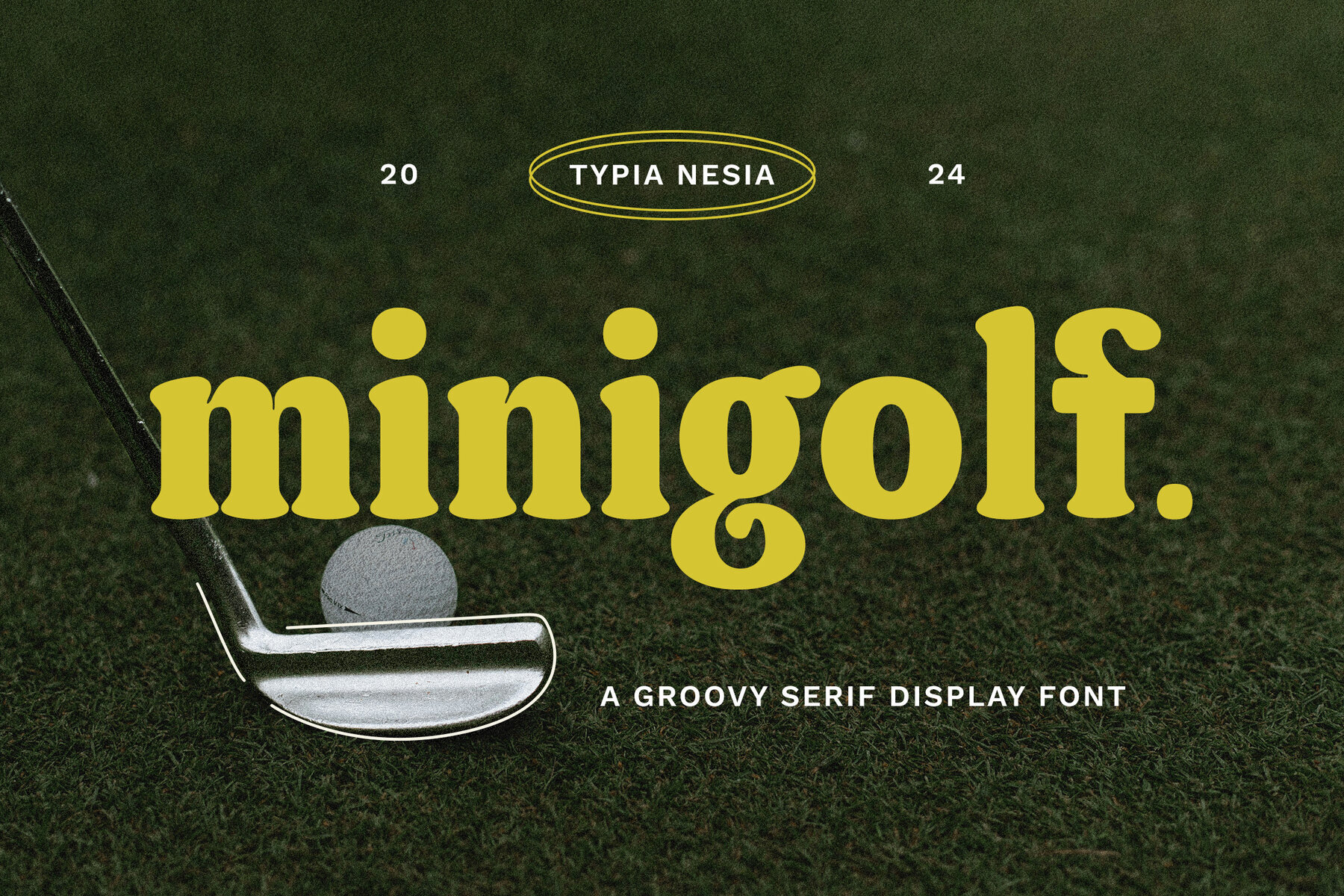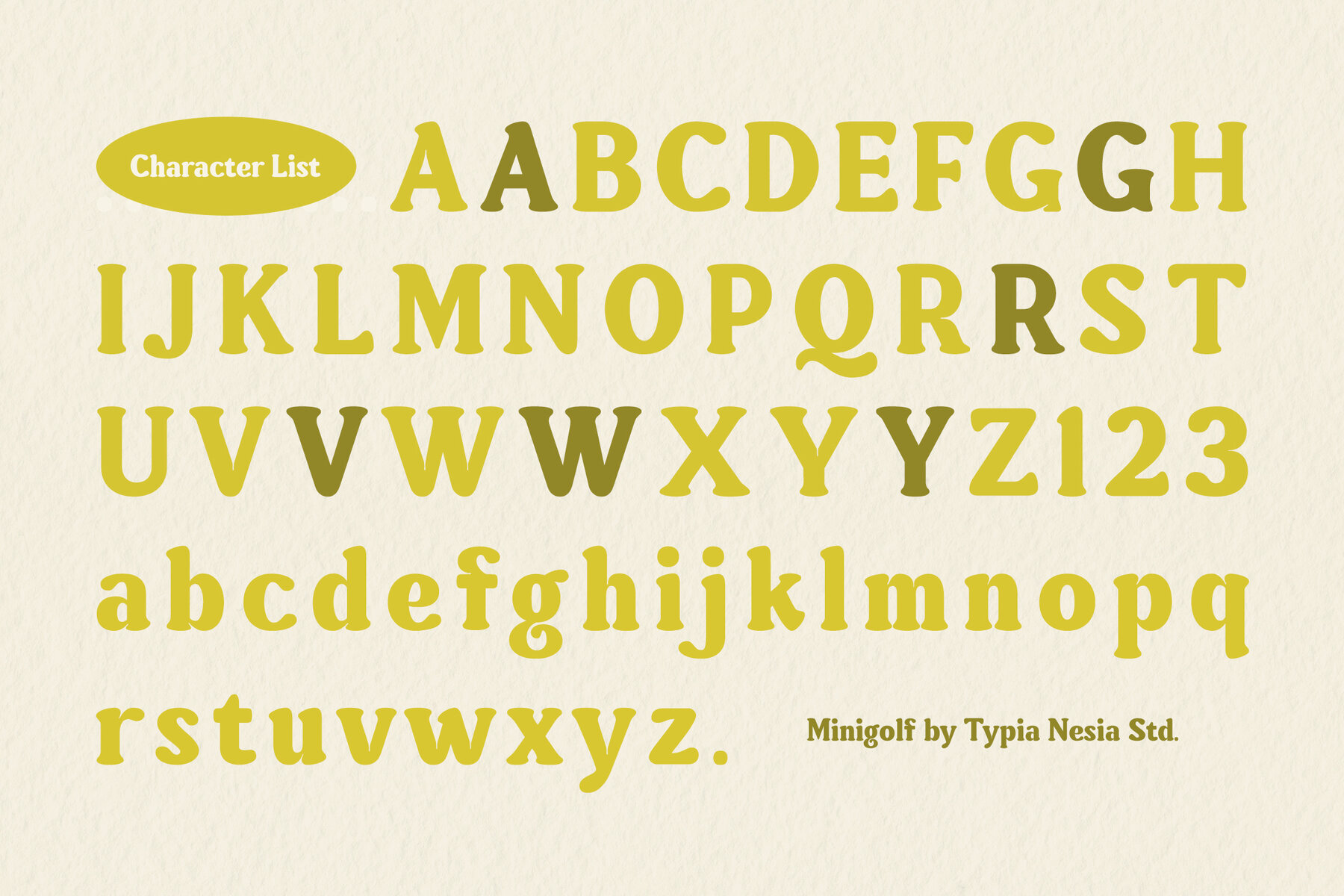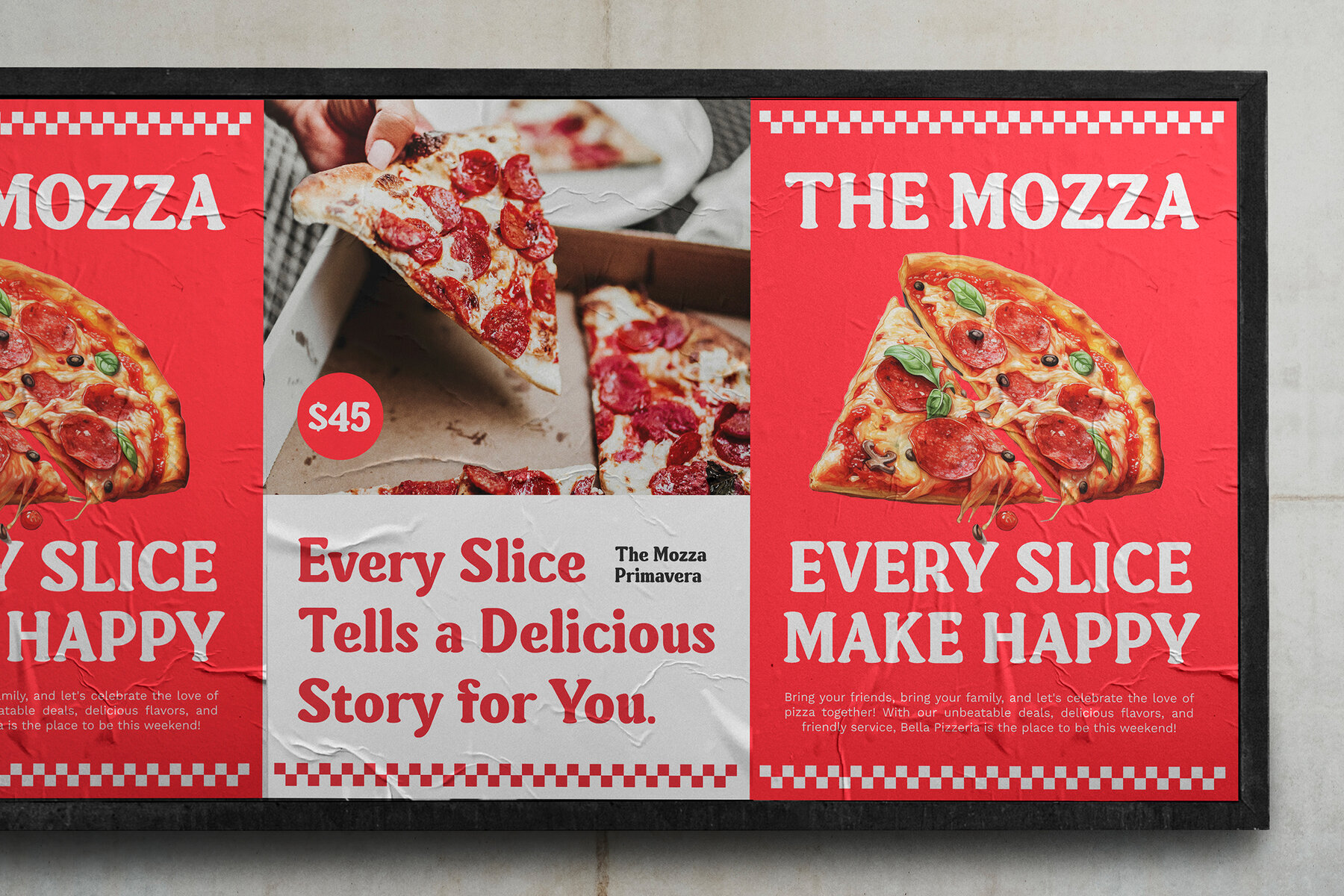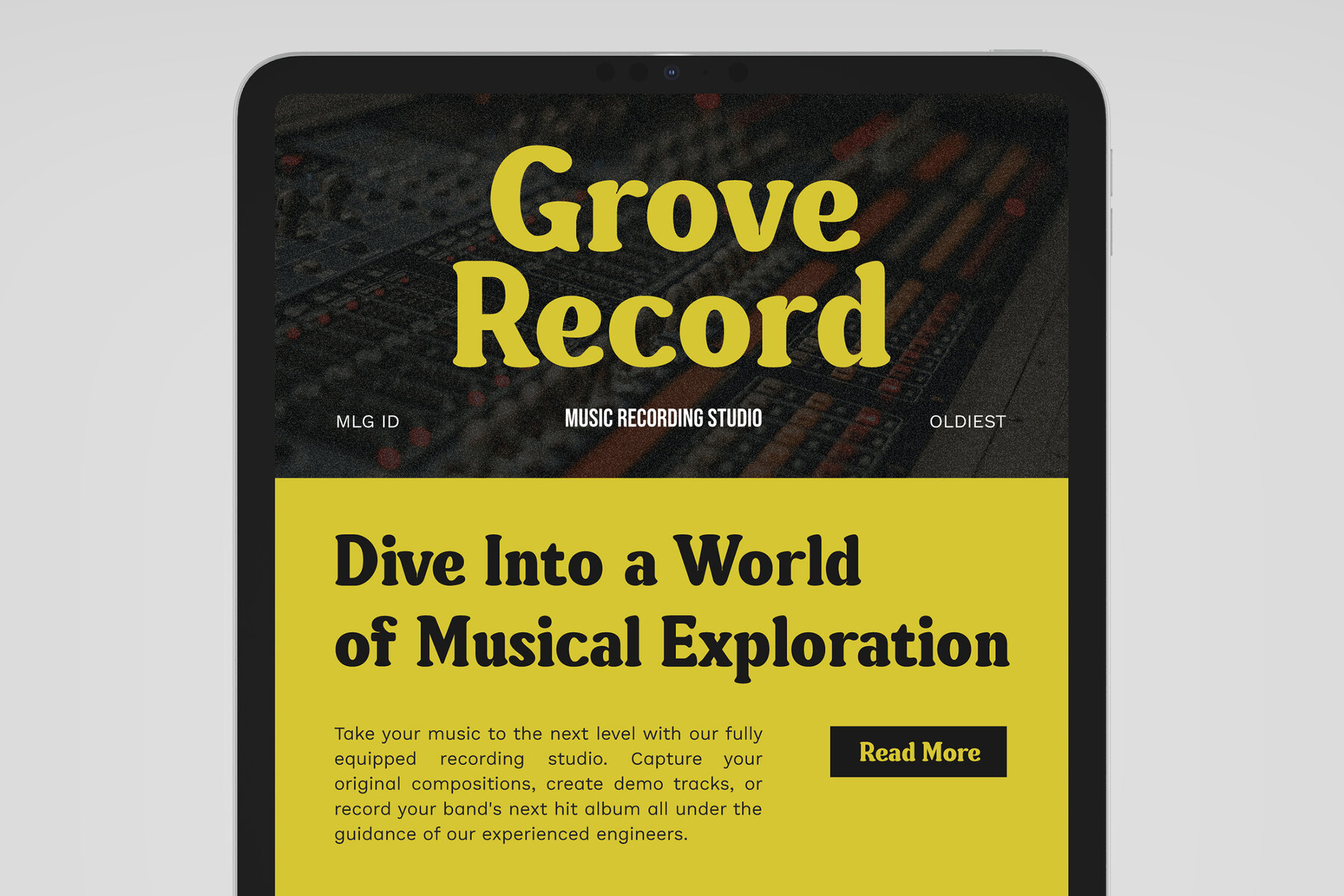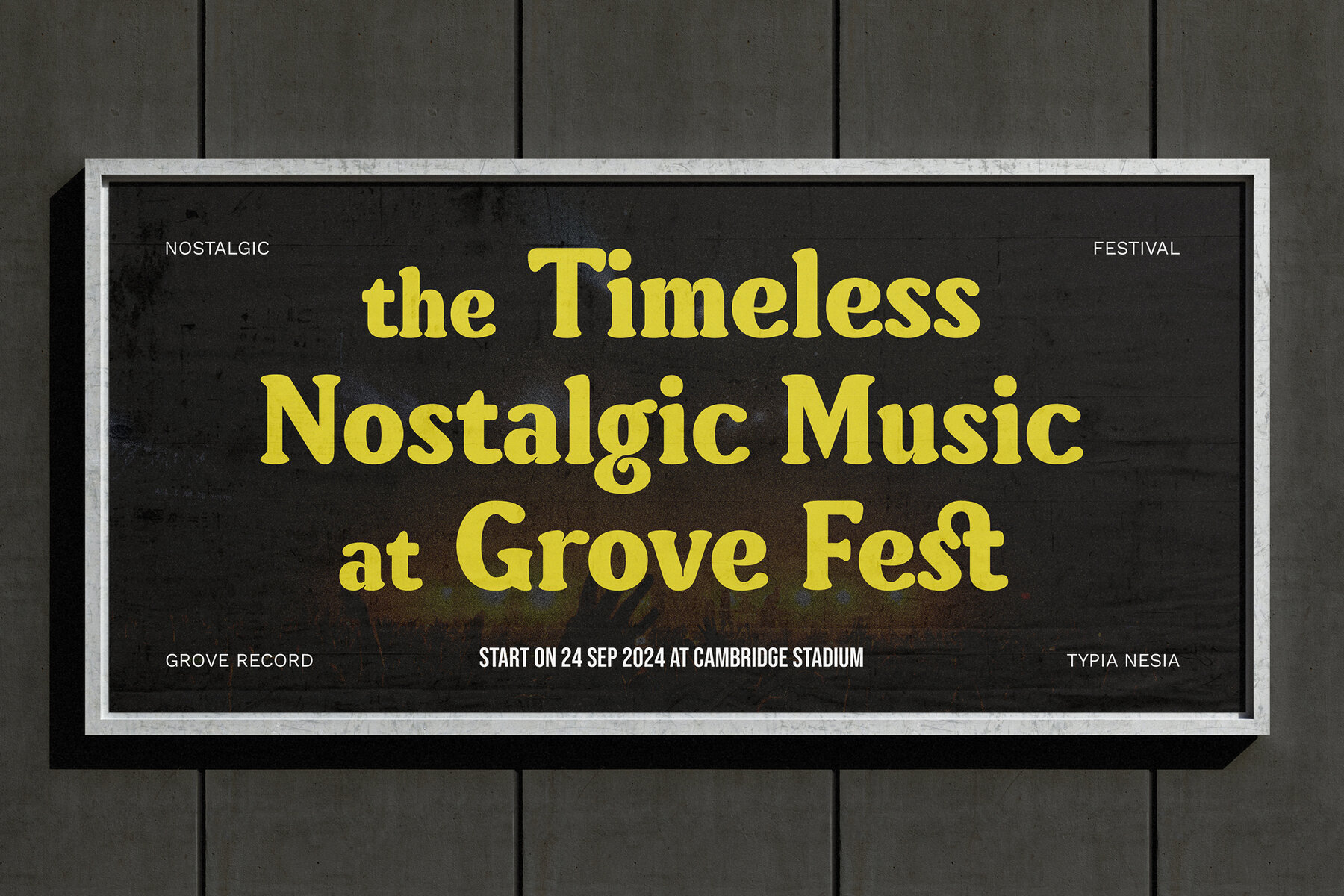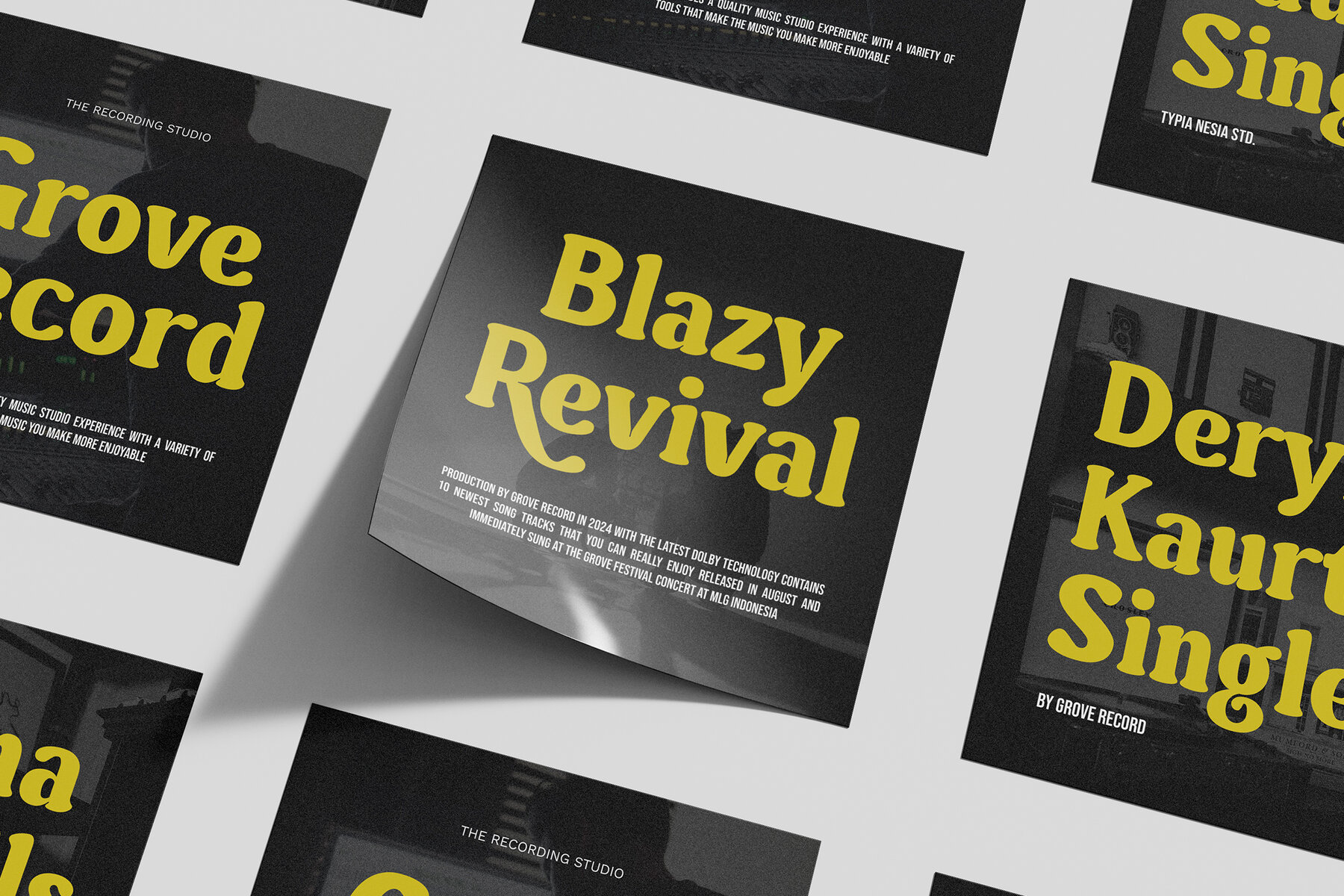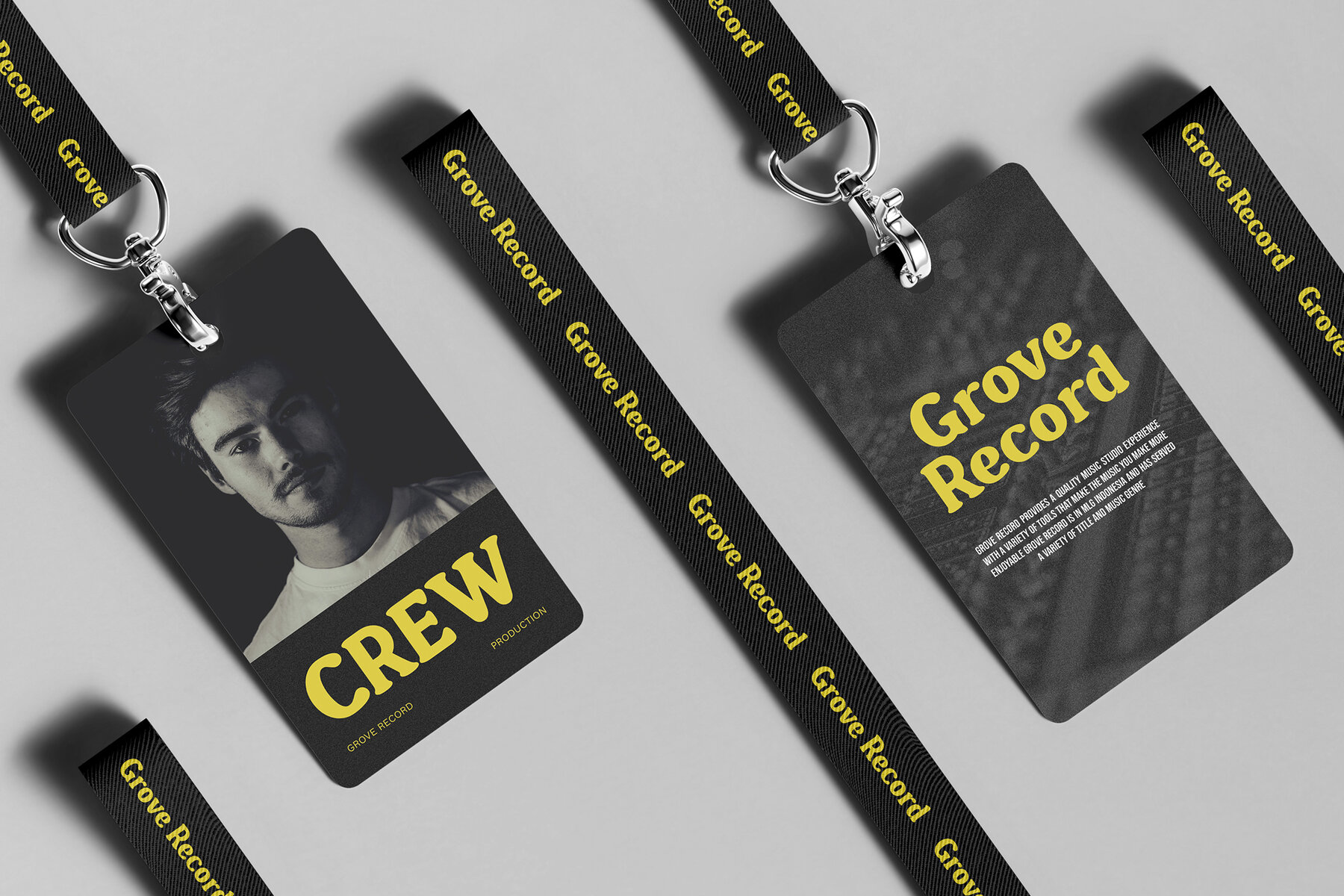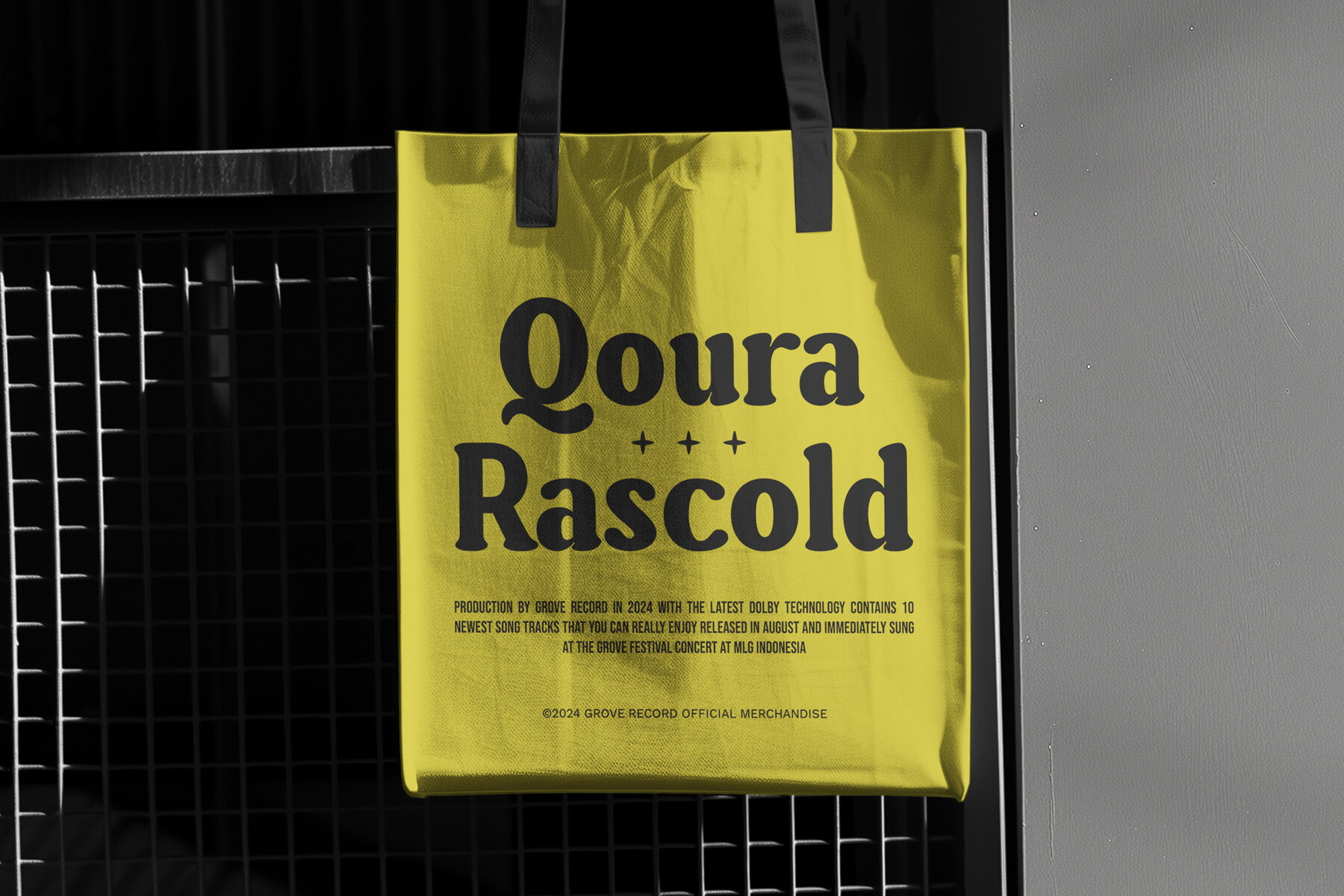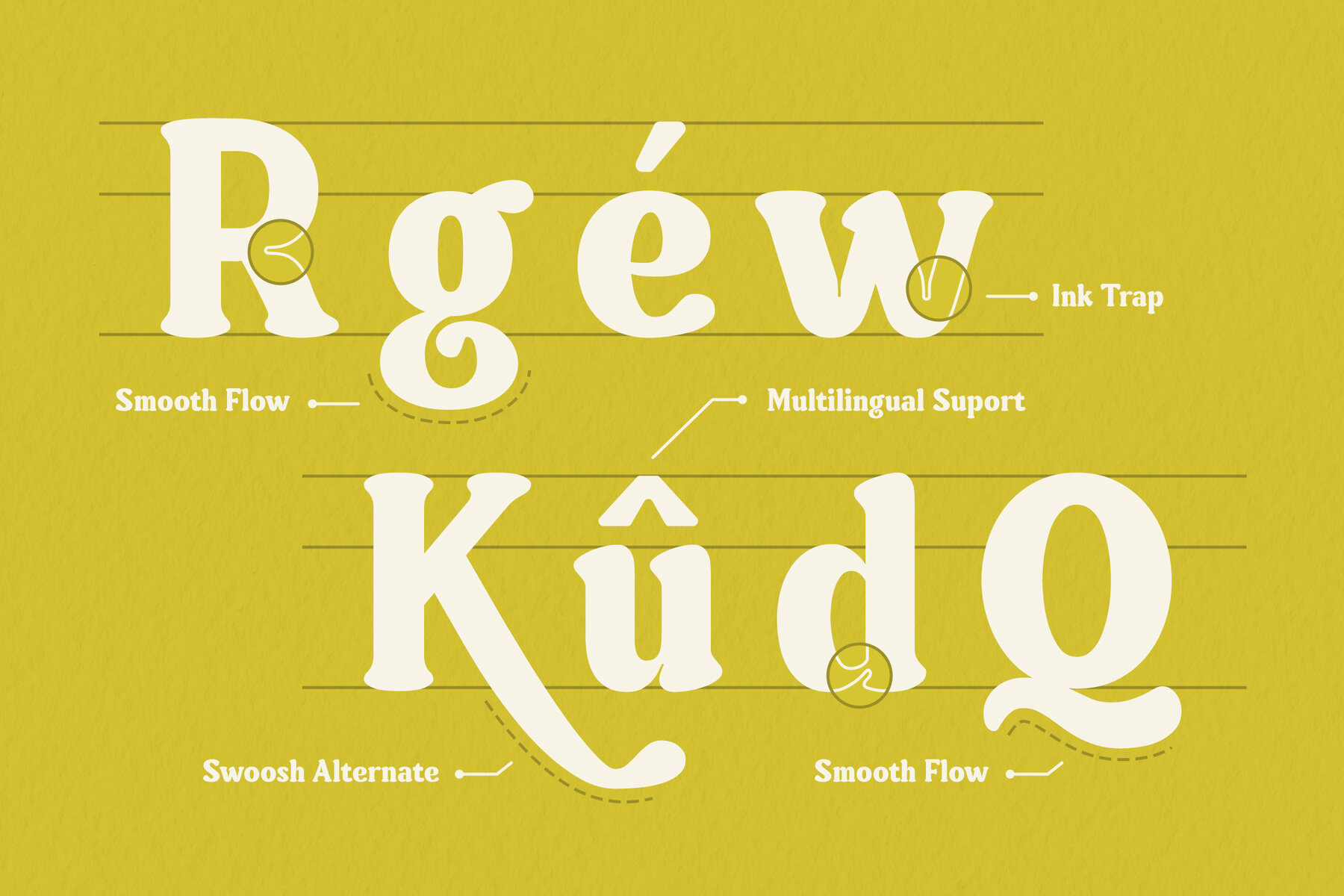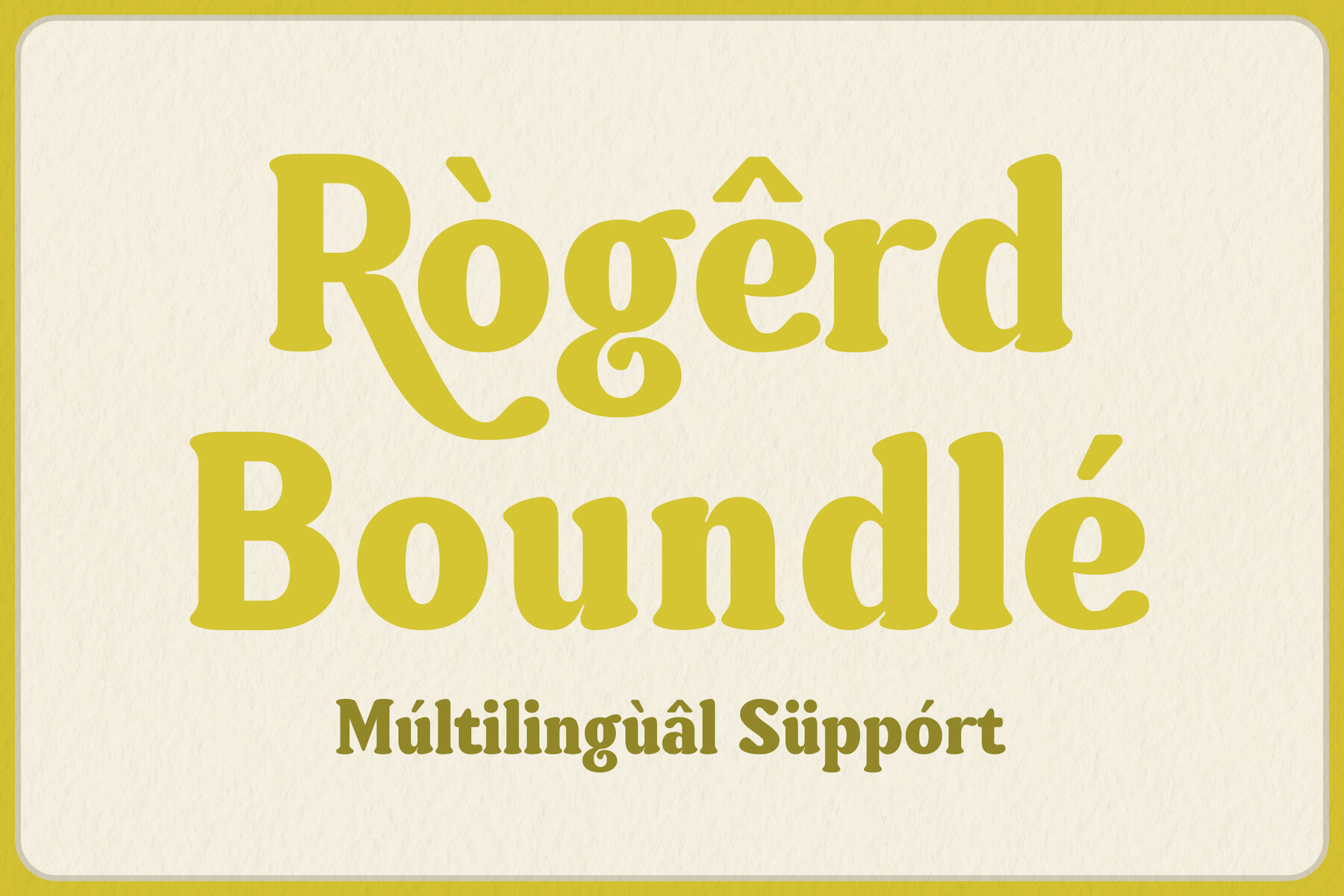
Mingolf Font
Minigolf Regular
Minigolf is a Groovy Serif Display Font that exudes retro charm and playful vibes with its unique serif design. Inspired by vintage typography, it adds a touch of nostalgia and fun to any project, making it perfect for retro-themed designs and creative endeavors such as event branding, apply the font for branding materials for fun groovy events such as music festivals, retro-themed parties, or outdoor gatherings. You can also apply Minigolf font for poster design, packaging design, logo design, apparel and merchandise, social media graphics, website headers and titles, magazine and editorial design, party invitations and flyers, signage and murals, educational materials and more. Use the font if you want a groovy and distinctive look to capture attention and evoke a sense of nostalgia. Minigolf comes with alternates and comprehensive support for both uppercase and lowercase letters, punctuation marks, and numerals. These features offer versatility and allow designers to create visually engaging typographic compositions. Additionally, multilingual support ensures accessibility for users worldwide. Crafted with expertise in retro typography and design, Minigolf reflects a deep understanding of vintage aesthetics and design principles. Its Groovy Serif Display Font style showcases mastery in capturing the essence of retro charm and nostalgia.